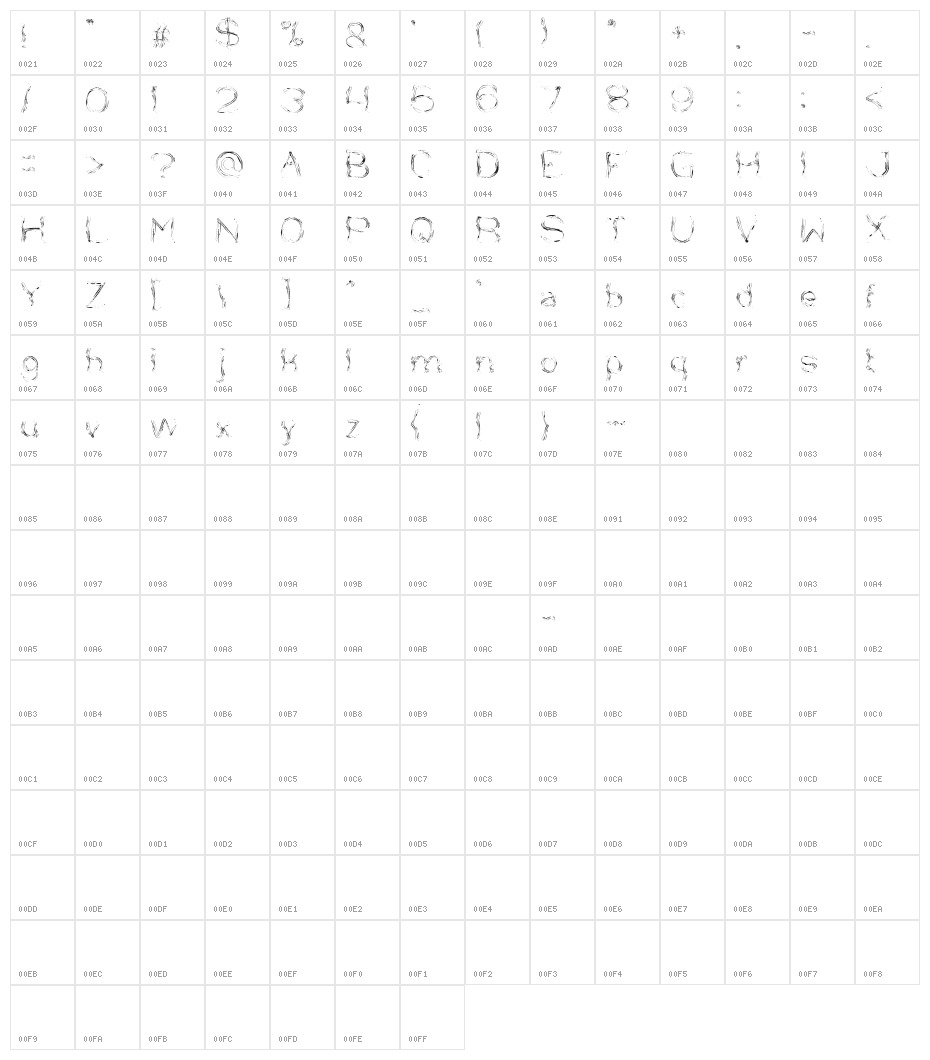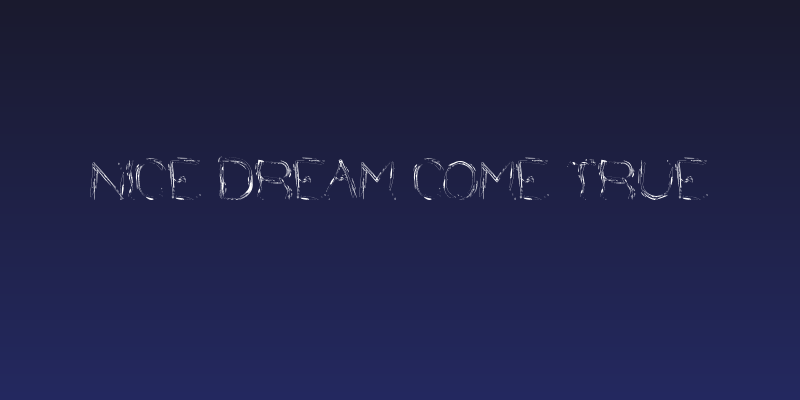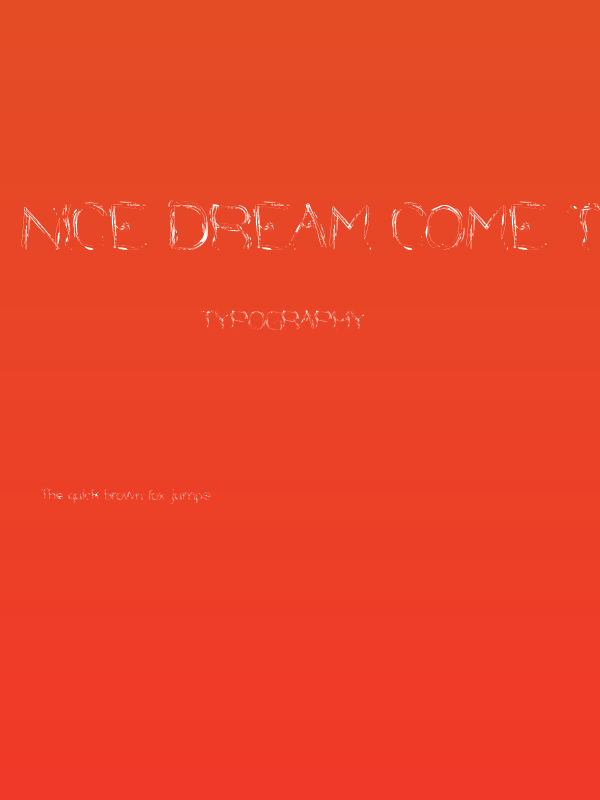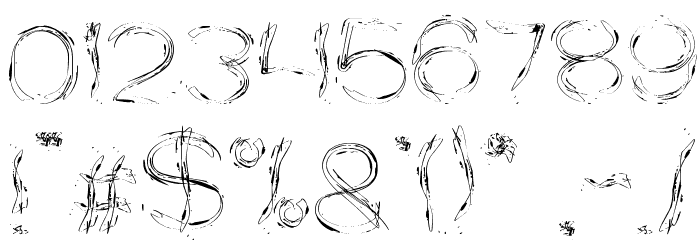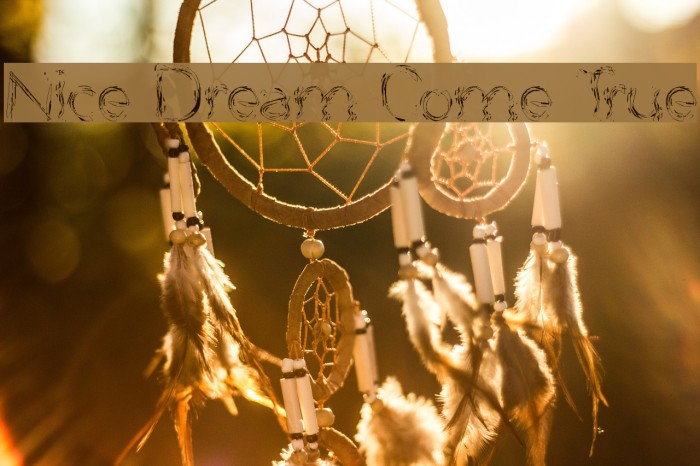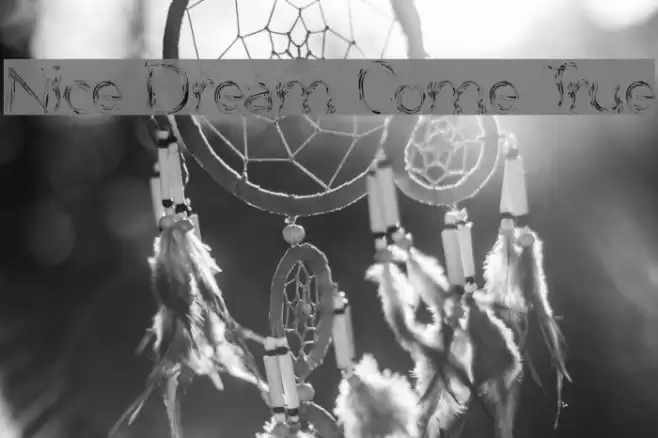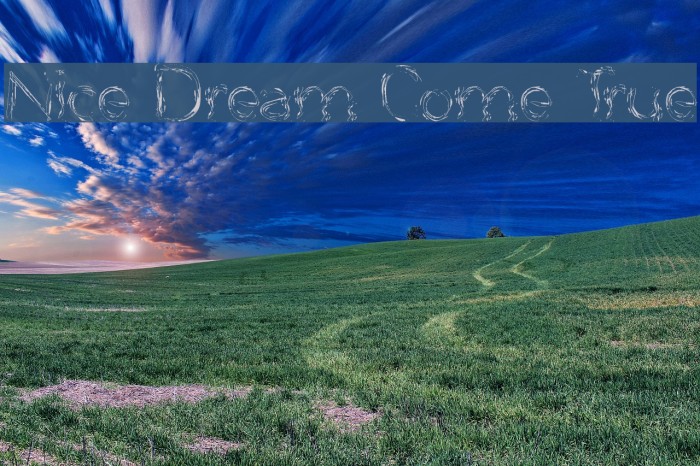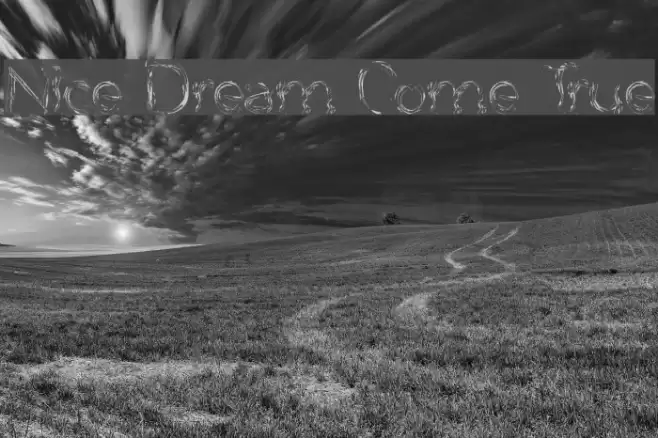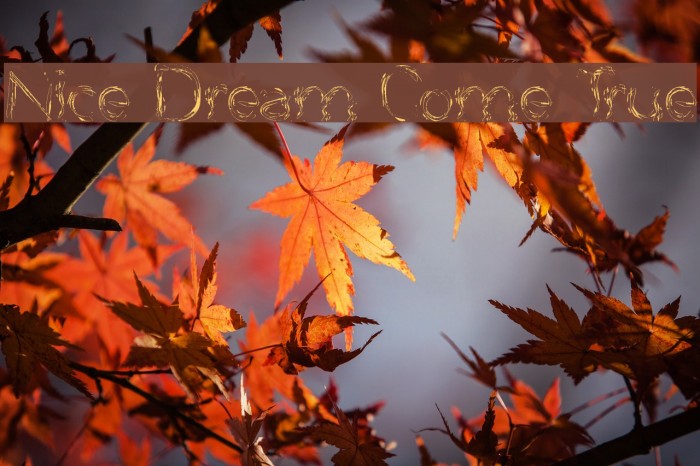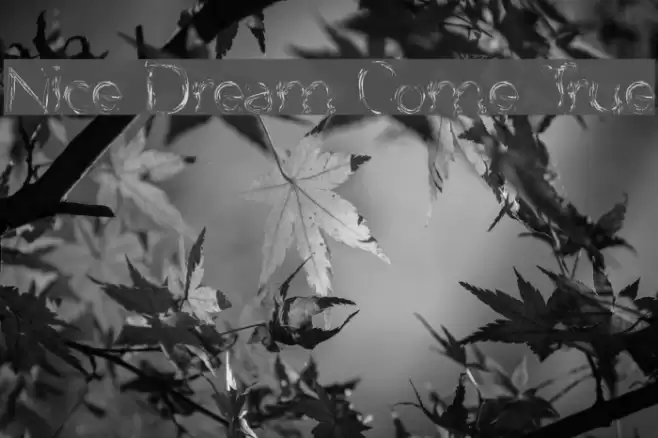
Nice Dream Come True Font
Nice Dream Come True Description
This font features a unique, artistic design with a hand-drawn appearance. The characters are composed of swirling, textured lines that give an impression of movement and fluidity. Each letter has a distinct, organic feel, making it stand out with its intricate detailing. The uppercase and lowercase letters maintain a consistent style, while the numbers and special characters follow the same artistic theme. This font is ideal for creative projects that require a touch of whimsy and individuality. Its decorative nature makes it suitable for eye-catching headlines or artistic displays.
| Use Case | Headlines, Artistic displays, Creative branding |
| Proposed Projects | Ideal for creative projects such as posters, album covers, artistic branding, and unique invitations. |